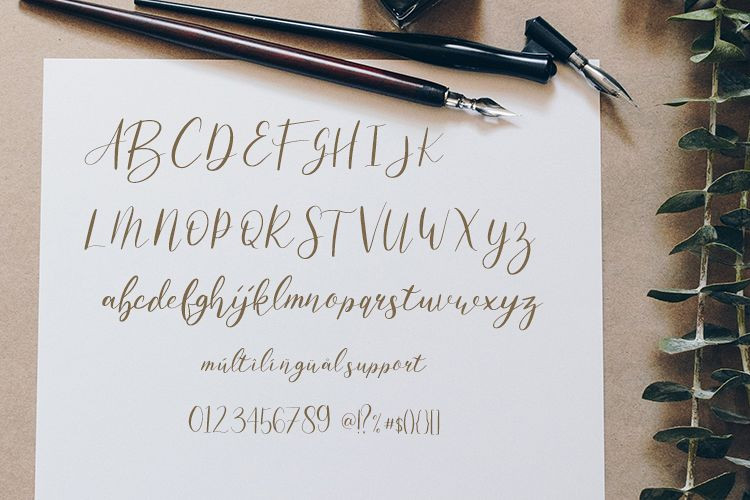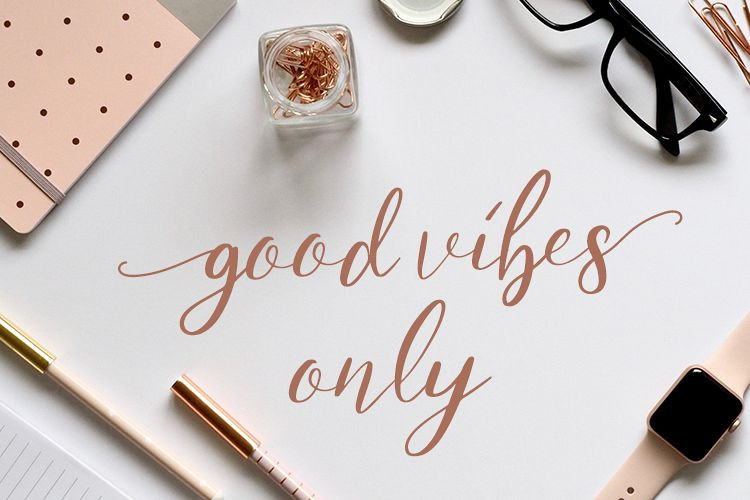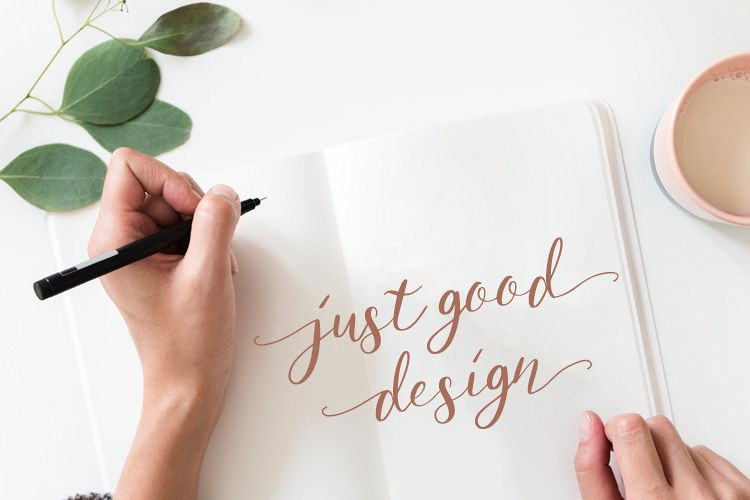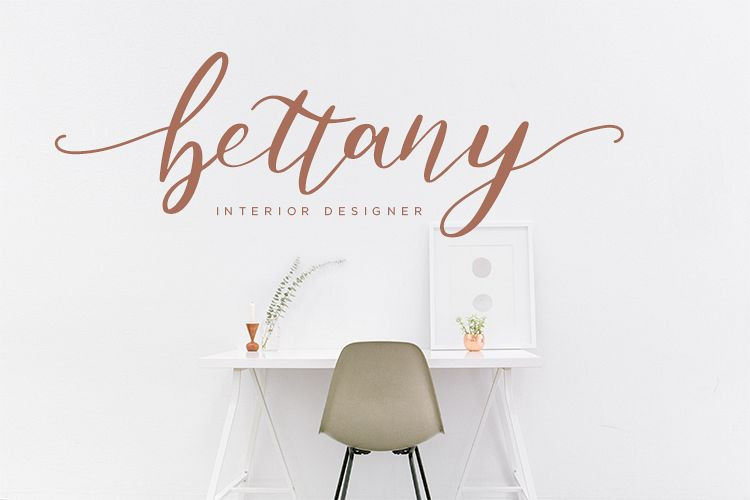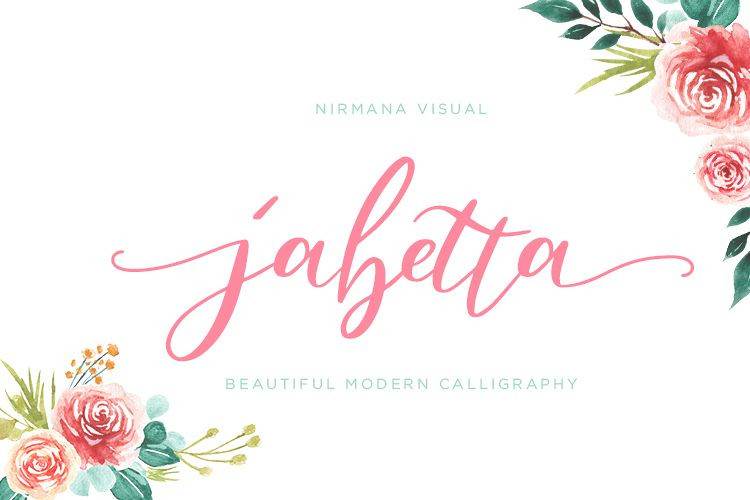
Jabetta Script Font
A beautiful modern calligraphy typeface, this font has unique and perfect for branding and other design needs. Introducing Jabetta Font. It’s an organic, casual, smooth, and gorgeous dancing font made carefully from the real handwritten. Great choice for your special moment or special project, pair perfectly with another font style. It’s also easy to use, with extra ligatures, alternates, and underline swashes to make your project more catchy. Attached them on your wedding invitations, gifts, brand, logos, tagging, and even to promote your personal business.
The font has smooth wet ink texture, so would be perfect for all types of printing techniques+you can do embroidery, laser cut, gold foil etc